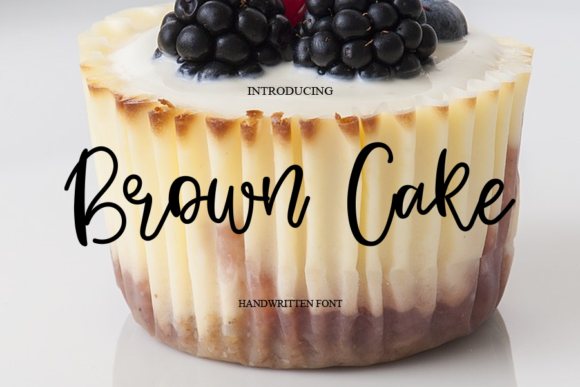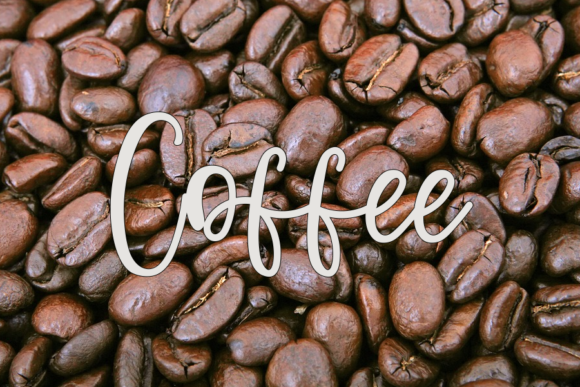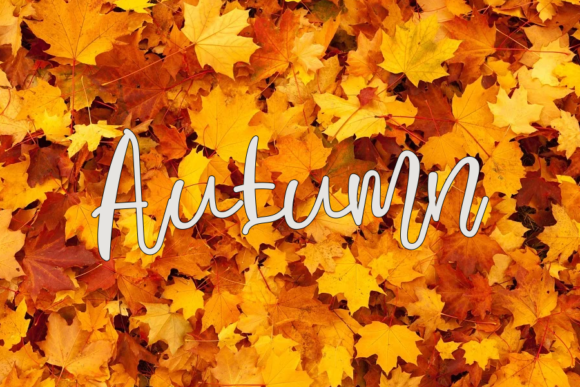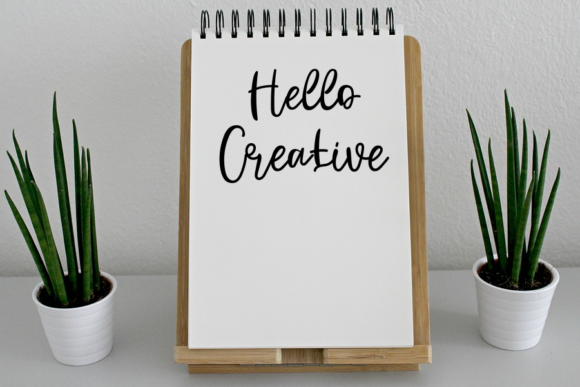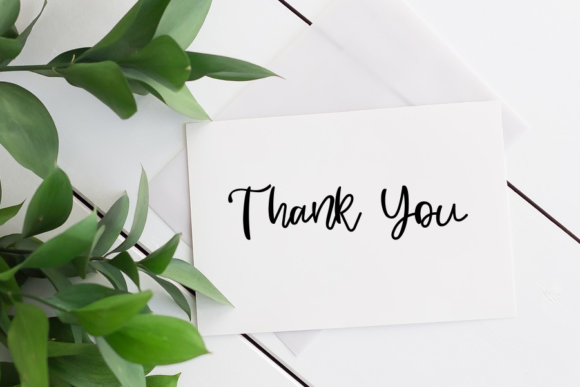
About Brown Cake Font
Brown Cake is a cursive script font carefully created with a touch of elegance. Whether you’re looking for fonts for Instagram or calligraphy scripts for DIY projects, this font will turn any creative idea into a true piece of art!